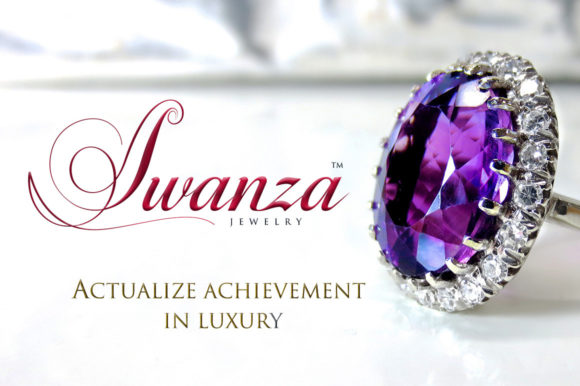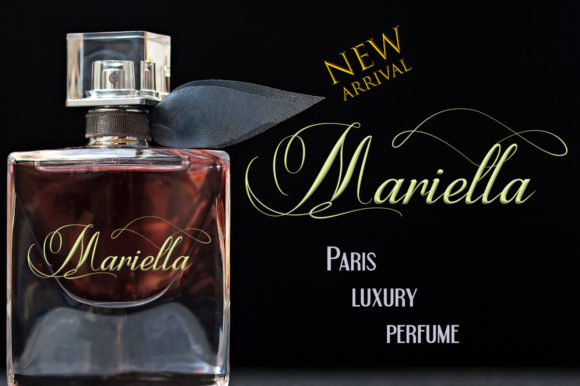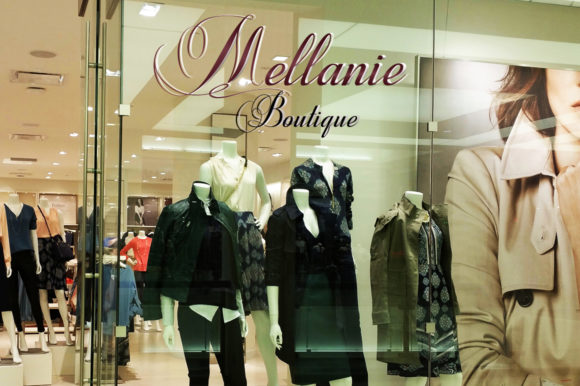
Introduction to Shannia Font
Shannia is a delicate, elegant and flowing handwritten font.
It has beautiful and well balanced characters and as a result, it matches a wide pool of designs Shannia is PUA encoded which means you can access all of the glyphs and swashes with ease.
Key Features of Shannia Font